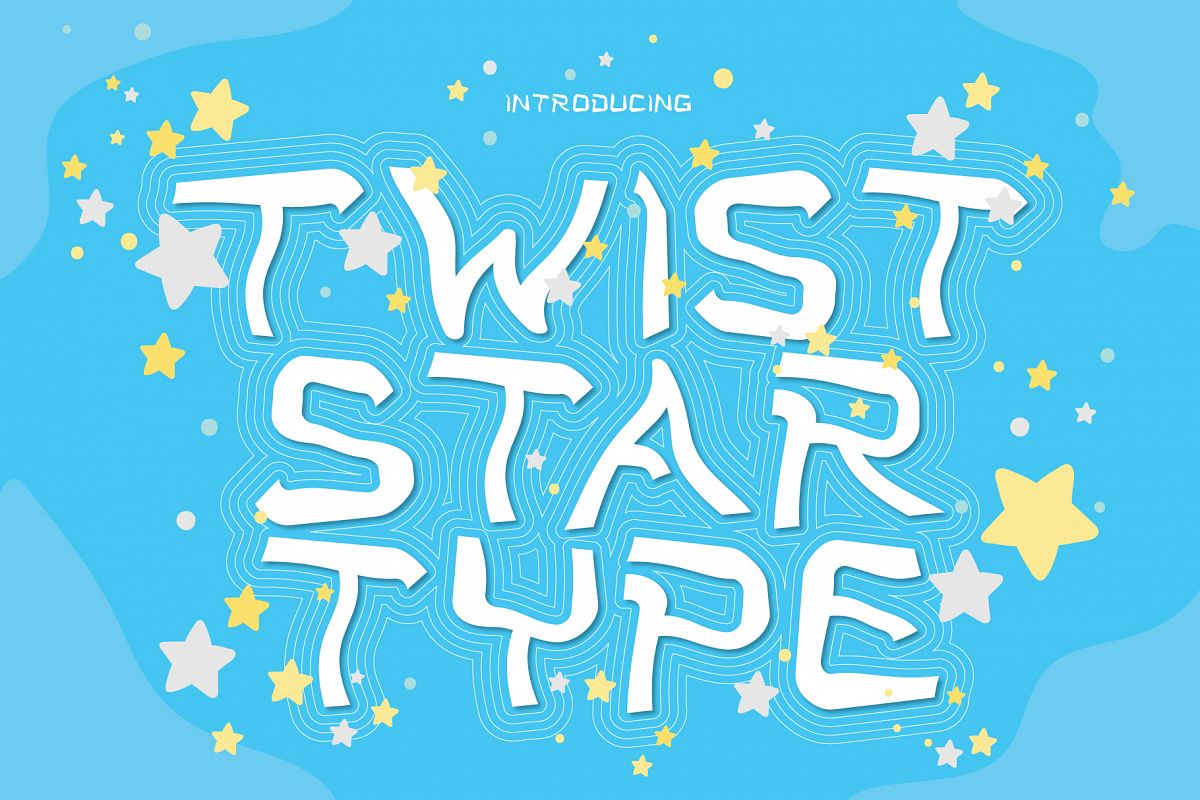
Twist Star Type
Twist Star Type is textured brush font, contemporary approach to design, handmade natural with an less regular baseline. Suitable for use in title design. Such as apparel, invitations, books tittle, stationery design, quotes, branding, logos, greeting card, t-shirt, packaging design, poster and more.